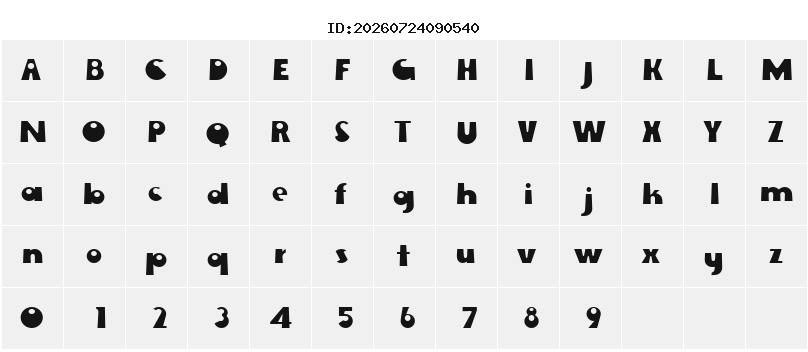
Ewie Becker Preview
• Font Name: Ewie Becker
• Full Font Name: Ewie_Becker
• PostScript Name: EwieBecker
About Ewie Becker.ttf
Ewie Becker.ttf is a modern, elegant sans-serif font designed for ultimate readability and visual harmony. Perfect for branding, headlines, web design, and print materials.